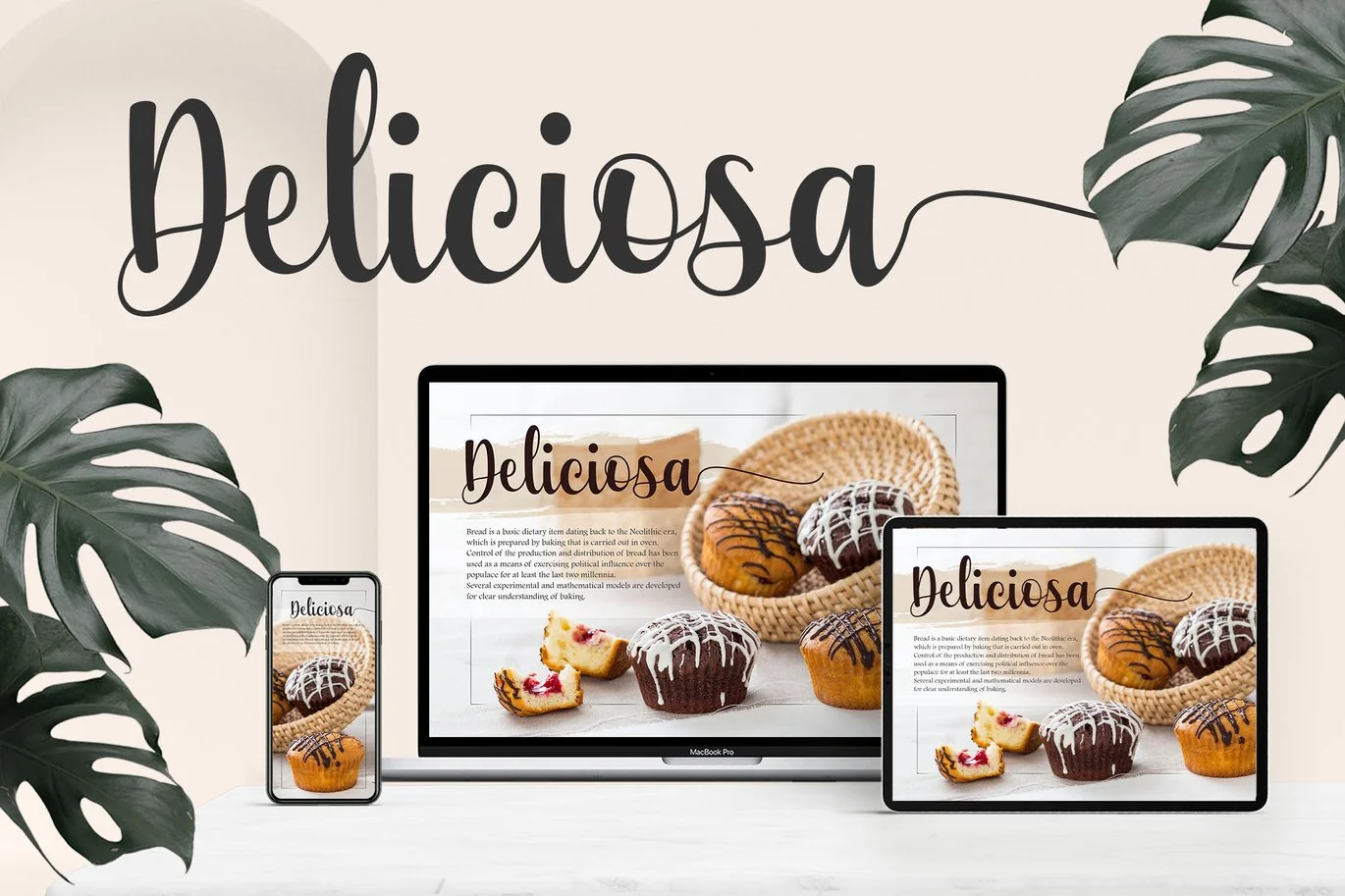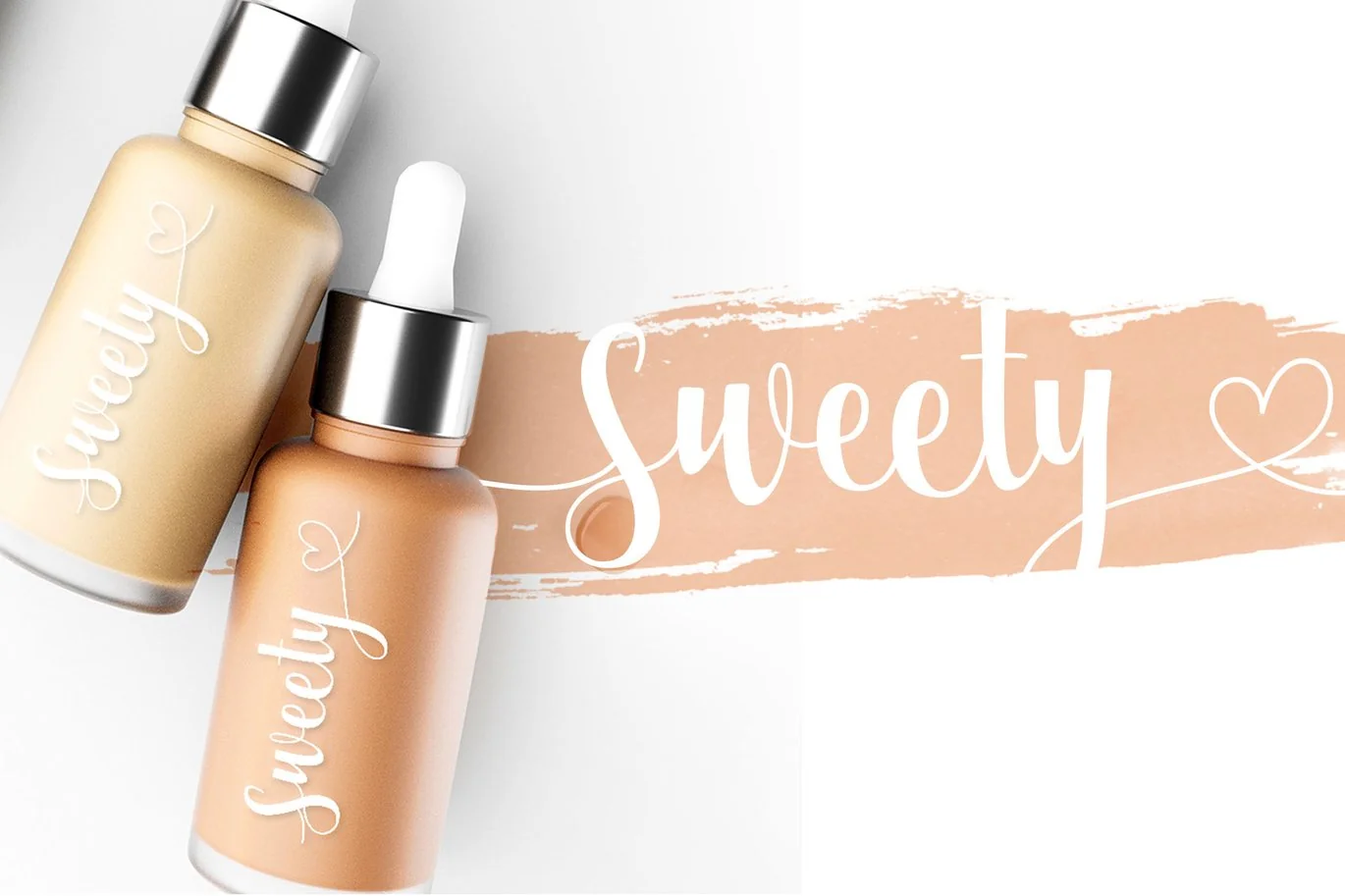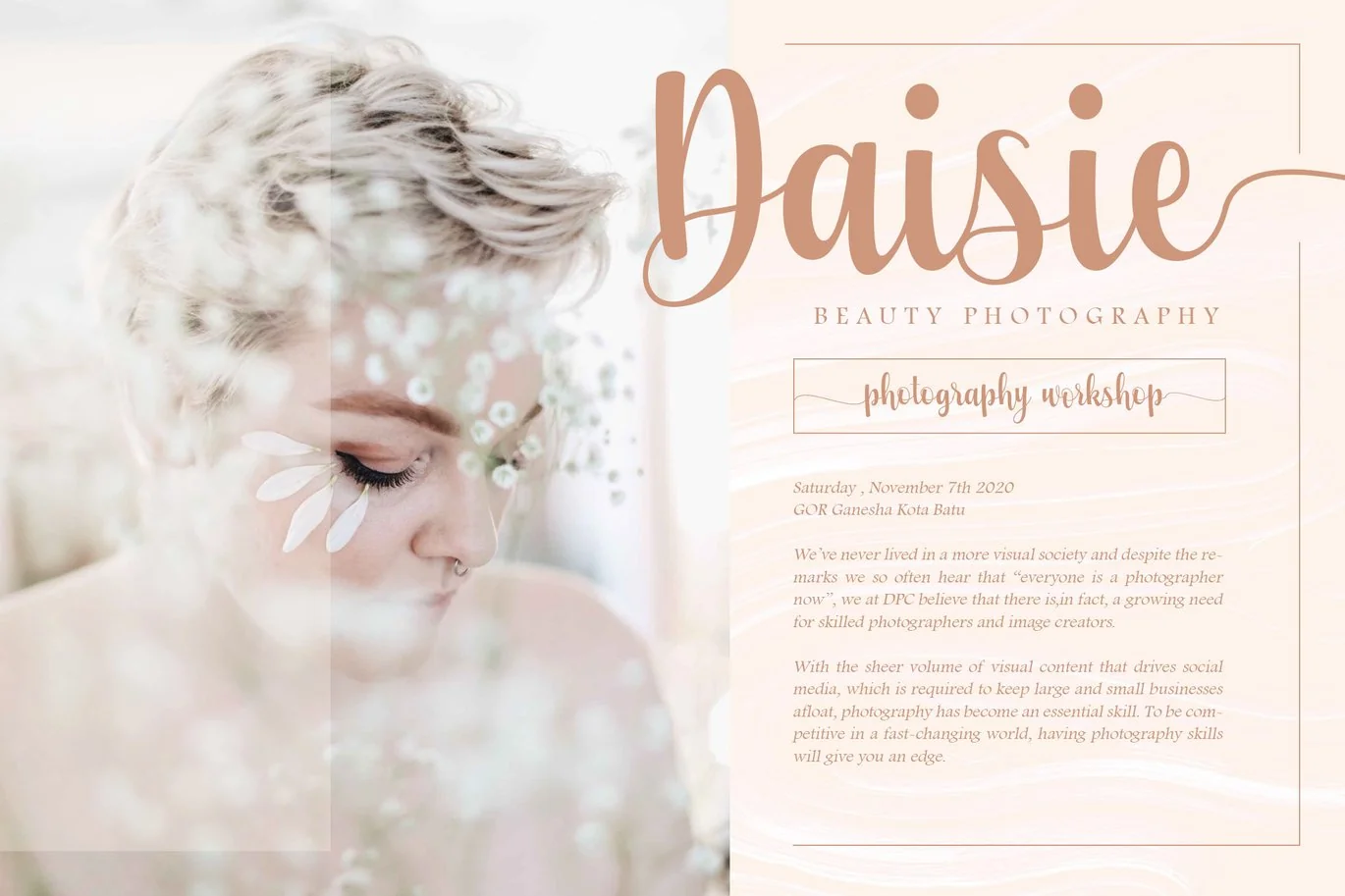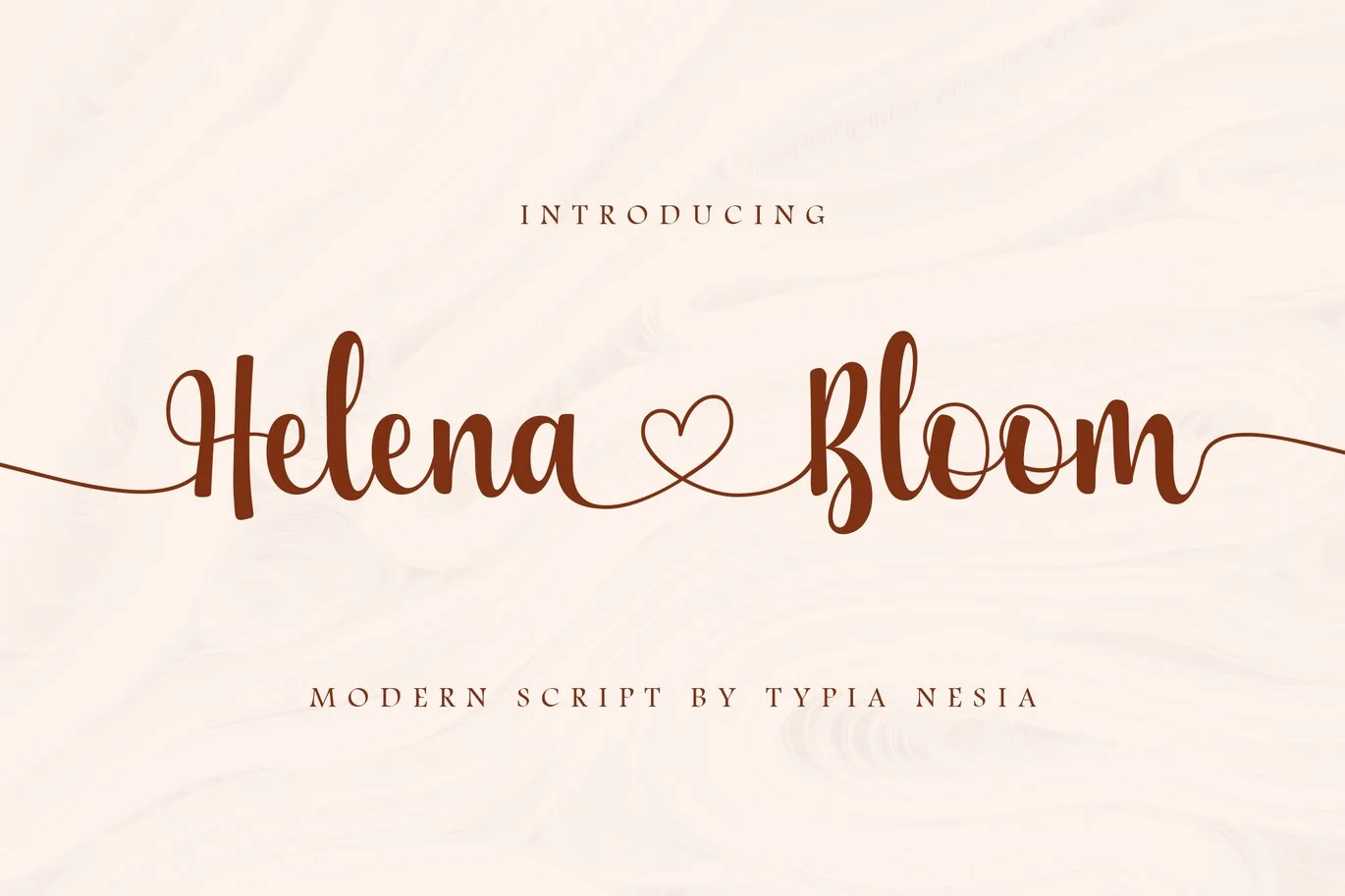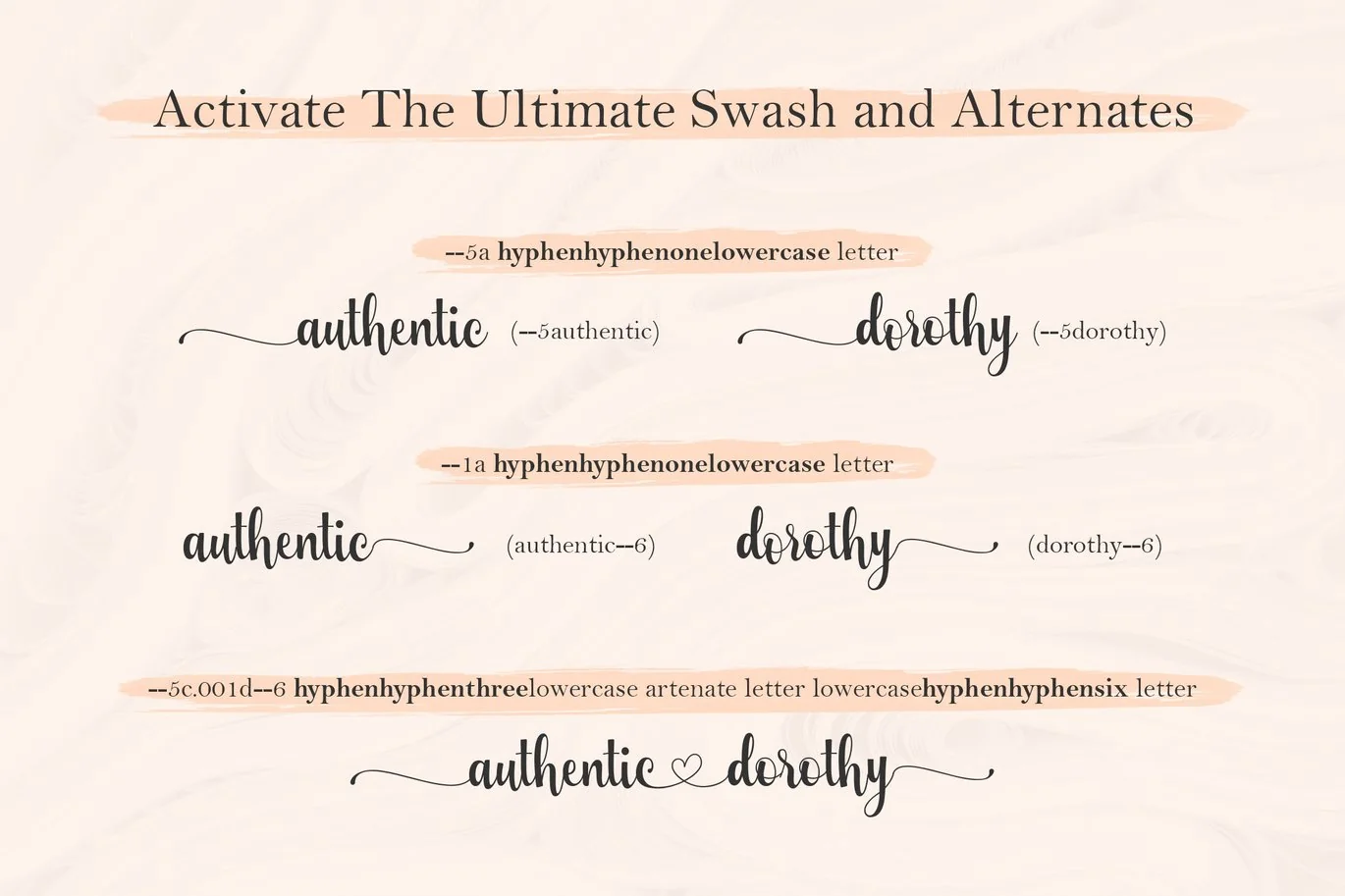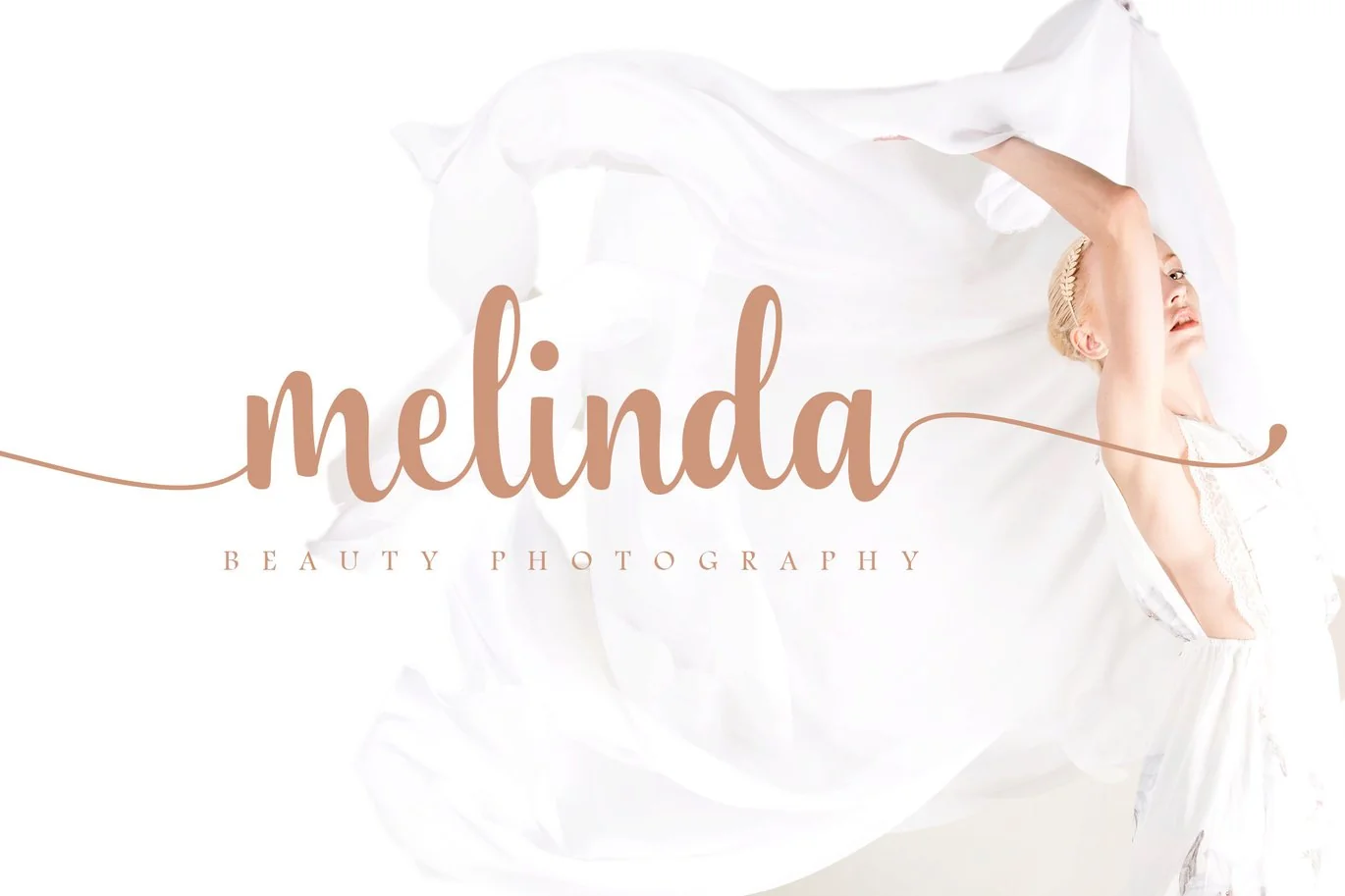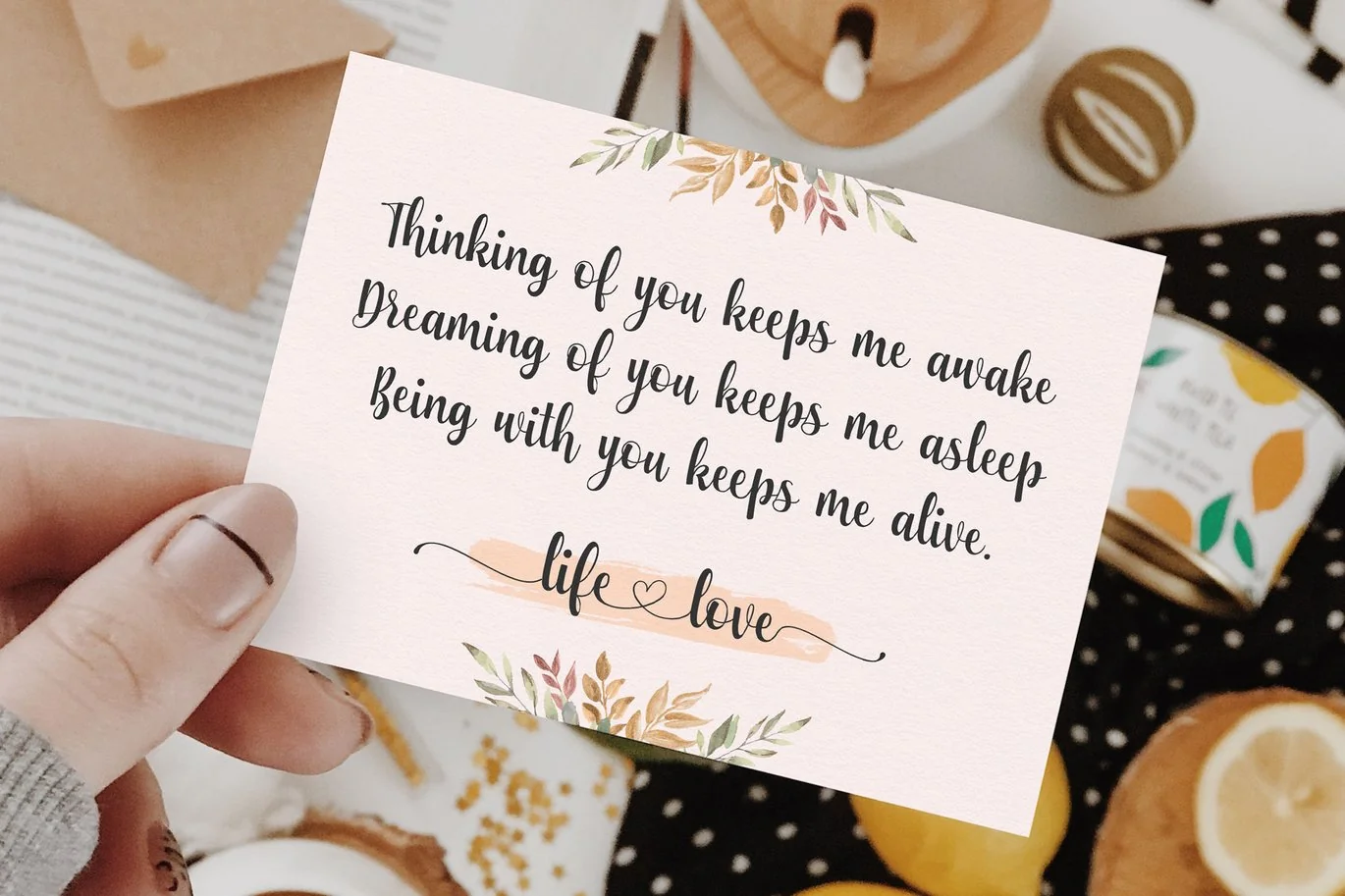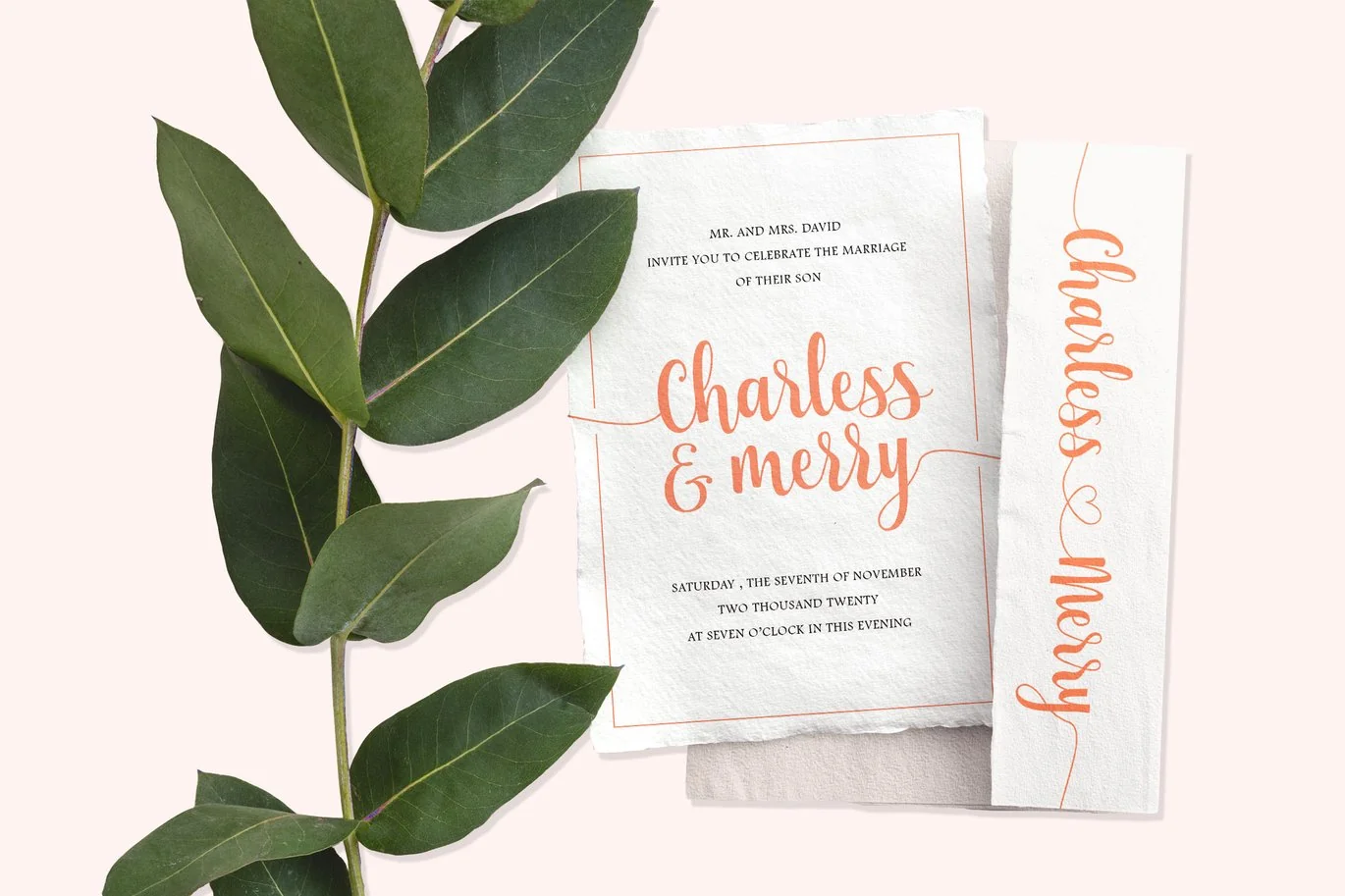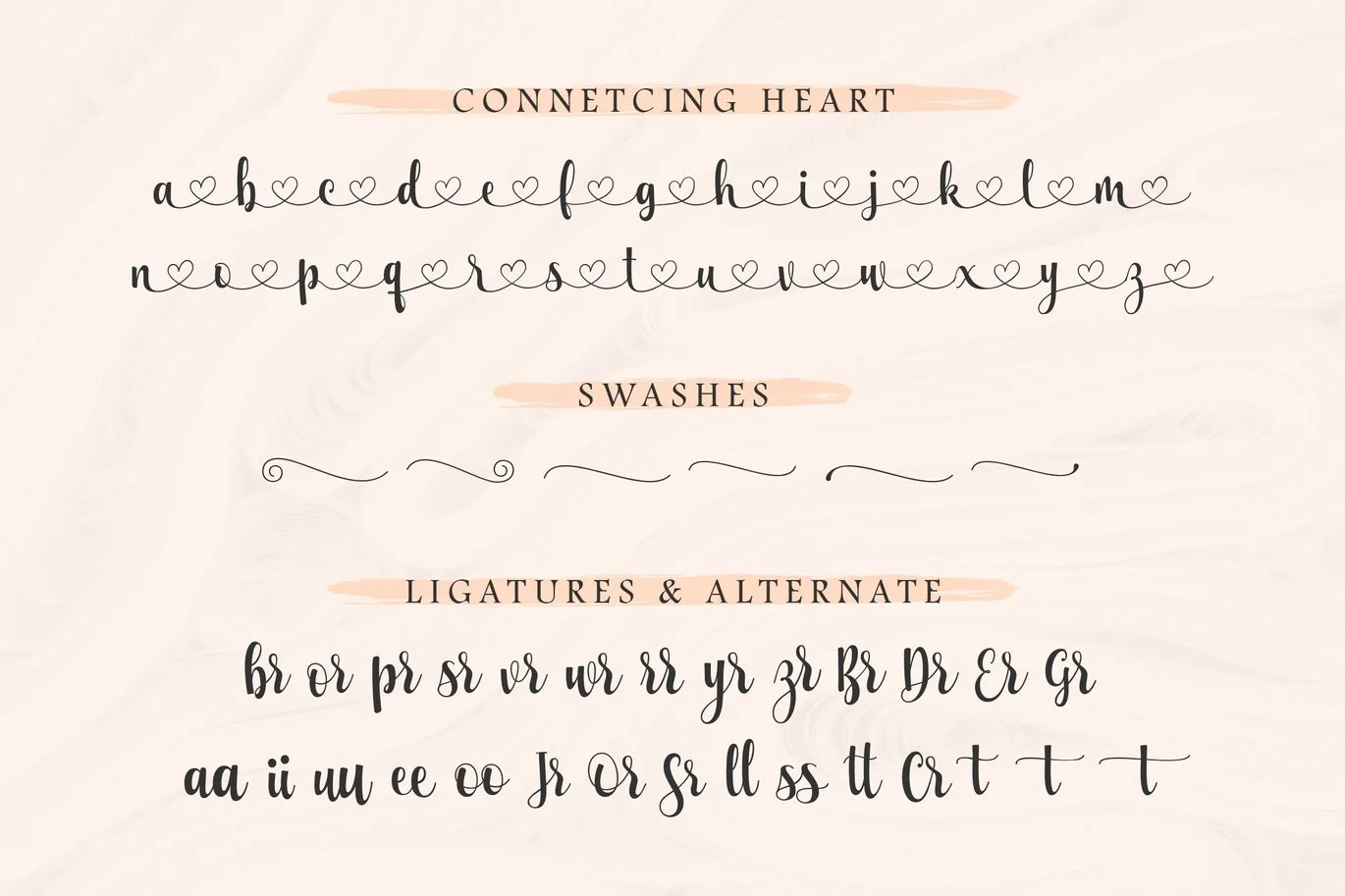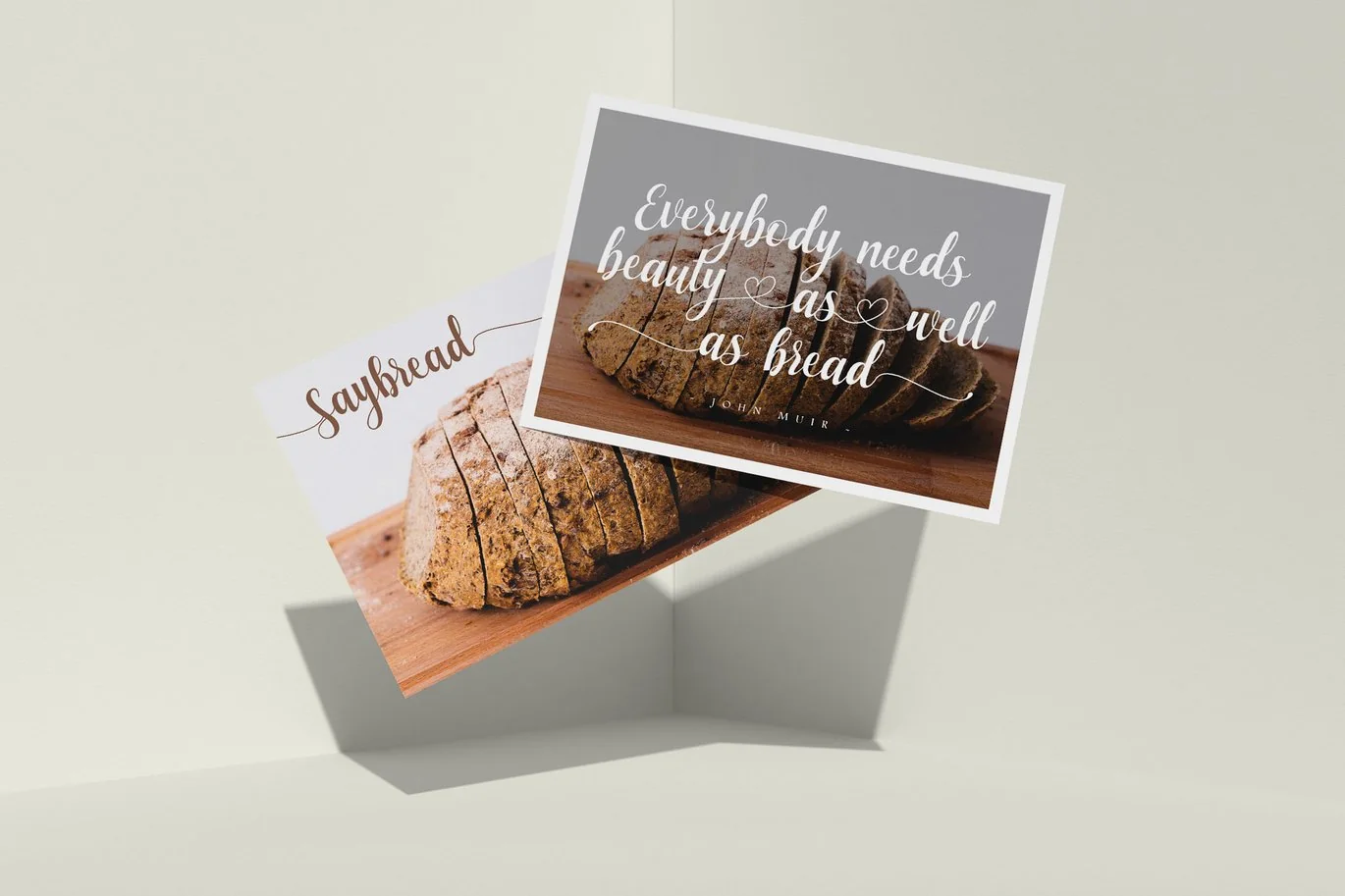
Helena Bloom – Wedding Font
Helena Bloom – Wedding Font – a Calligraphy Script Font with ligatures and swashes.
The unique flow and easy calligraphy style makes it perfect for wedding design, blogging, social media, branding, invitation, gretting cards or simply use it in your next design project. It comes with ligatures and swashes. You can combine it to make a perfect beautiful calligraphy design.